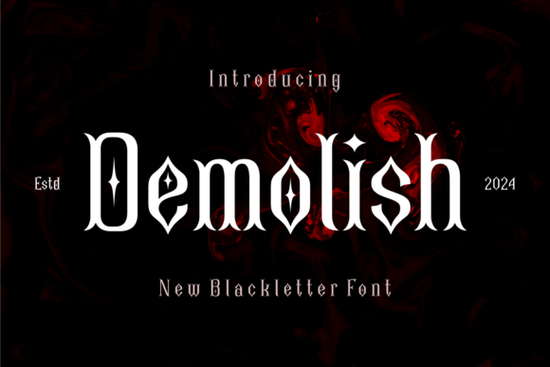
If you're looking for a bold, dramatic font that stands out while still feeling grounded in tradition, Demolish Font is worth exploring. It’s a blackletter typeface with a distinctive twist small rhombus shapes subtly integrated into the letterforms give it a modern edge without losing its medieval roots. This makes it ideal for projects where you want strength and character, whether you’re designing a logo, creating merchandise, or adding impact to a poster.
What makes Demolish Font stand out?
Blackletter fonts often feel heavy and old-fashioned, but Demolish breaks that mold slightly. The thick strokes and well-defined structure ensure readability even at smaller sizes, while the tiny rhombus details add visual interest. These aren’t distracting they’re just enough to make the design feel intentional and unique.
It’s not just about looks. The font works well across different formats: print, digital displays, social media graphics, and even embroidery files. Its clean construction means it scales reliably, so your designs stay sharp no matter the size.
Who should use this font?
Designers working on branding for metal shops, tattoo studios, or vintage-themed businesses will find it fitting. Crafters who enjoy making custom signs, apparel, or wall art can use it to create standout pieces. Print-on-demand sellers also benefit this font adds instant gravitas to t-shirts, mugs, and tote bags, especially when paired with dark backgrounds.
Small business owners launching a new brand or rebranding might appreciate how Demolish conveys confidence and craftsmanship. It’s not flashy, but it commands attention through consistency and presence.
Where can you use Demolish Font?
- Logos and brand identities – Perfect for brands wanting a strong, memorable look.
- Headlines and posters – Makes text pop without competing with other elements.
- Merchandise designs – Great for t-shirts, stickers, and packaging.
- Invitations and event flyers – Ideal for themed events like medieval fairs or gothic parties.
- Website headers – Adds personality to navigation bars or hero sections.
How to get the most from Demolish Font
Because of its bold nature, pairing it with simpler fonts works best. Use a clean sans-serif like Open Sans or Lato for body text to balance the design. Avoid using multiple decorative fonts together Demolish already carries a lot of visual weight.
When applying it digitally, test it at various sizes. On mobile screens, the rhombus details may become less visible, so keep that in mind for responsive layouts. For print projects, make sure your printer supports high-resolution output to preserve the crisp edges.
For those who prefer variety, explore collections that mix traditional calligraphy with contemporary elements. These types of fonts are especially useful when you want to convey heritage with a fresh perspective.